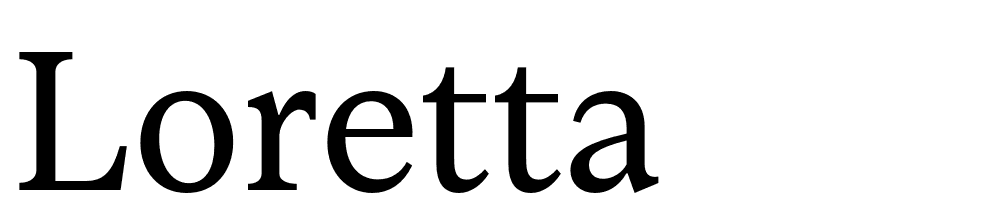
DEMO Cambridge Round Light Exp Bold
About DEMO Cambridge Round Light Exp Bold
Fontsprung Demo Cambridge Round Light Exp Bold is a font that exudes sophistication with its elegant, serif design. The font features a subtle curvature in its arcs and stems, giving it a warm and inviting feel. The bowls and counters are well-proportioned, creating a harmonious balance between positive and negative space. The serifs are delicate and bilateral, adding a touch of finesse to each letter. The ascenders and descenders are gracefully executed, adding to the overall elegance of the font.
Classified as an elegant and progressive font, Fontsprung Demo Cambridge Round Light Exp Bold strikes the perfect balance between classic typography and contemporary design. Its refined details and smooth curves make it suitable for a wide range of design projects, from wedding invitations to corporate branding. The font’s neutral yet expressive nature allows it to convey a sense of seriousness while still remaining approachable and friendly.
Overall, Fontsprung Demo Cambridge Round Light Exp Bold is a versatile font that combines classic elements with a modern twist. Its organic structure and warm undertones make it a perfect choice for designers looking to add a touch of sophistication to their projects. With its elegant and timeless design, this font is sure to make a lasting impression on any audience.